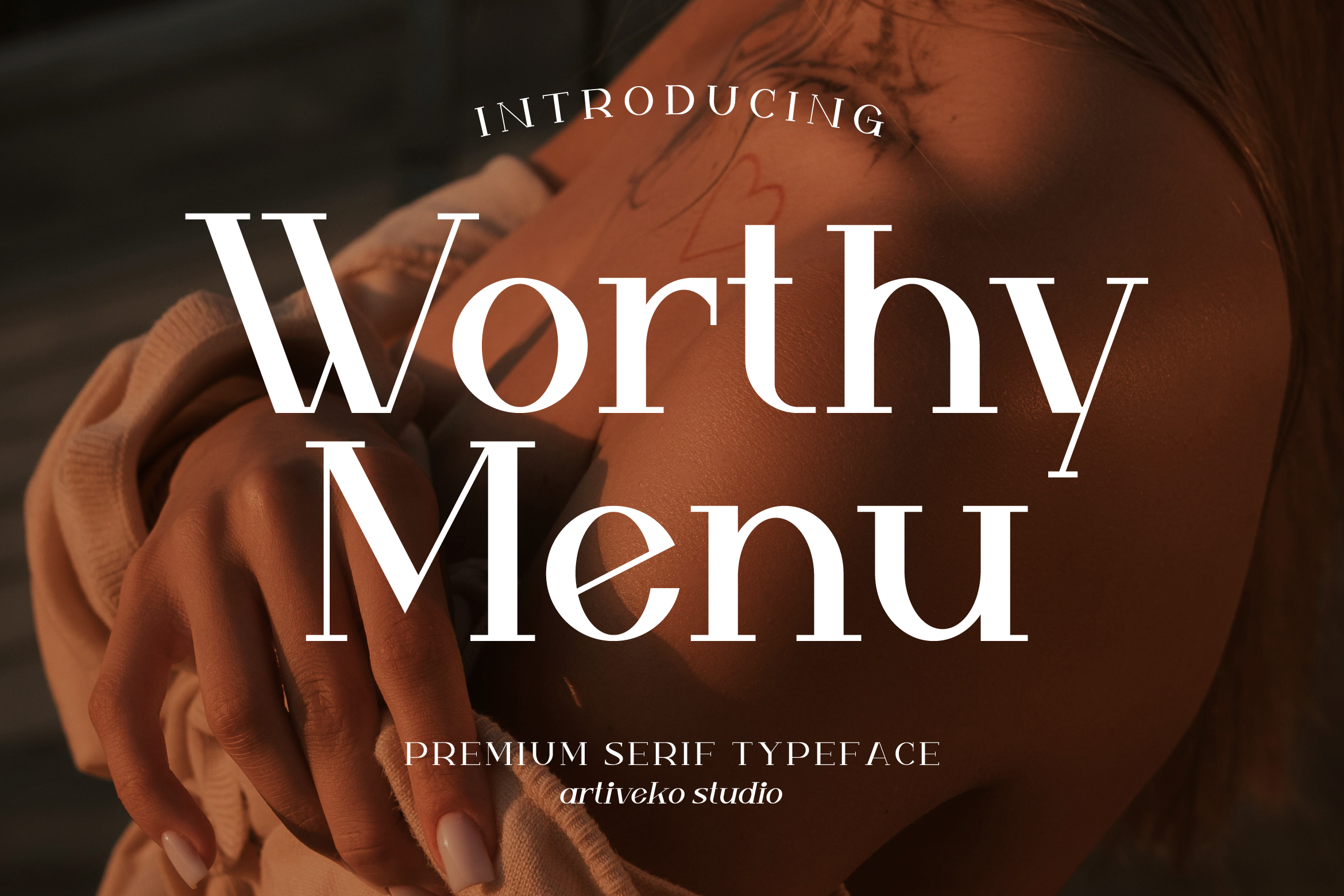
- Worthy Menu Elegant Serif Font
Worthy Menu is an elegant serif font that embodies sophistication and simplicity. Featuring high-contrast strokes, sharp serifs, and graceful curves, this typeface brings a sense of refinement and modern luxury to any design.
Perfect for premium branding, editorial layouts, wedding invitations, upscale menus, packaging, and social media graphics, Worthy Menu creates a visual statement that is both classic and contemporary. Its clean proportions and delicate details make it highly versatile for both display and text use.
The font includes uppercase and lowercase letters, numerals, punctuation, multilingual support, and a beautiful selection of ligatures and stylistic alternates for custom typography.
Add timeless elegance to your design projects with Worthy Menu — the minimalist luxury serif that blends beauty and precision.